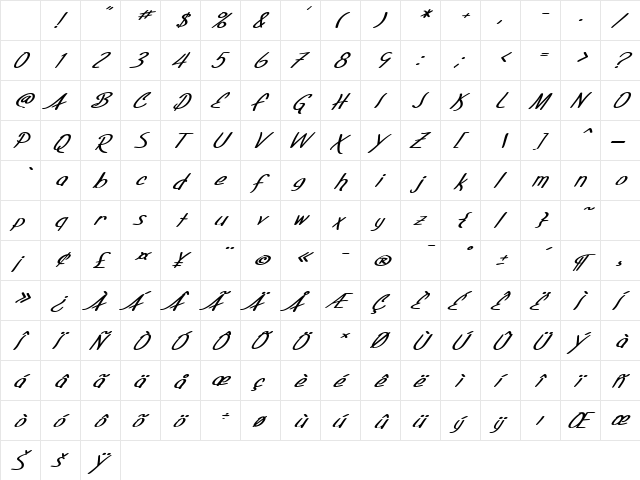
Complete SF Foxboro Script Extended Bold Italic glyph index. Displaying only characters natively supported by SF Foxboro Script Extended Bold Italic font.
SF Foxboro Script Extended flows with the natural rhythm of handwritten lettering, making it ideal for designs that call for warmth and personal expression. Its bold stroke weight gives it real presence on the page.
Font Pairing: Combine SF Foxboro Script Extended with a simple geometric sans for maximum contrast - the tension between flowing curves and clean structure is a classic typographic pairing.
Pro Tip: Use SF Foxboro Script Extended for short runs of text - names, titles, or taglines. Extended body copy in script faces tires the eye quickly.